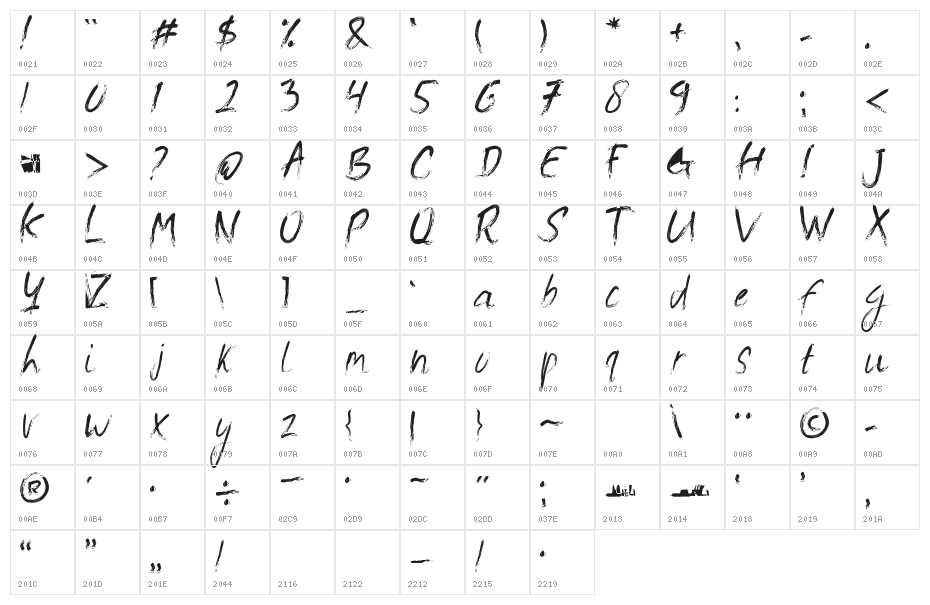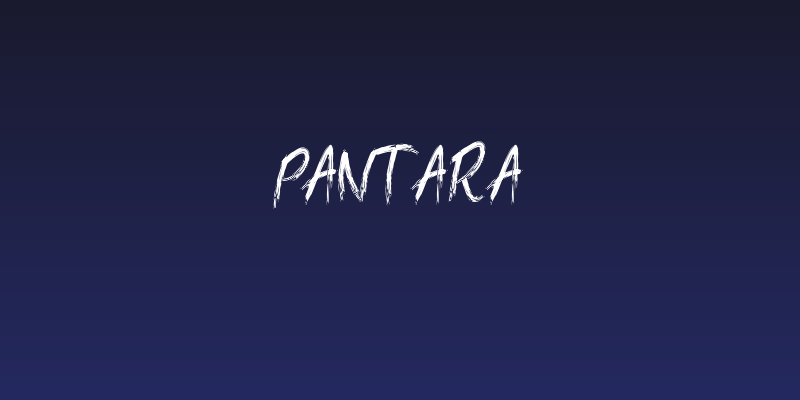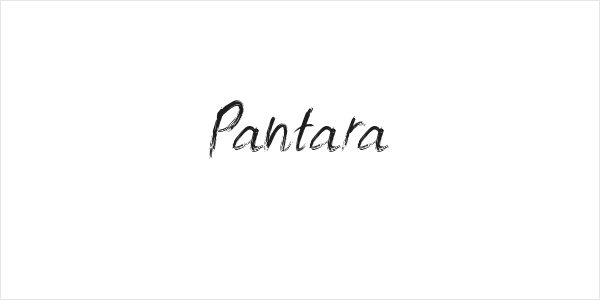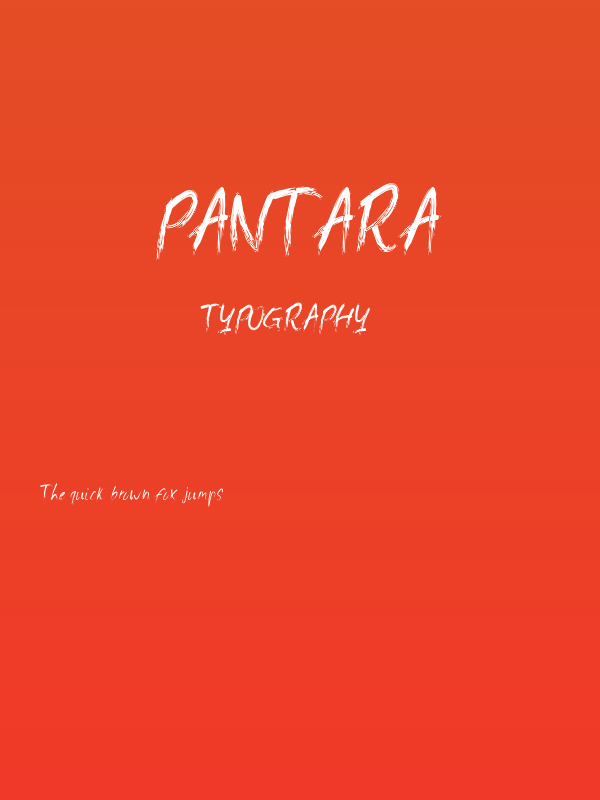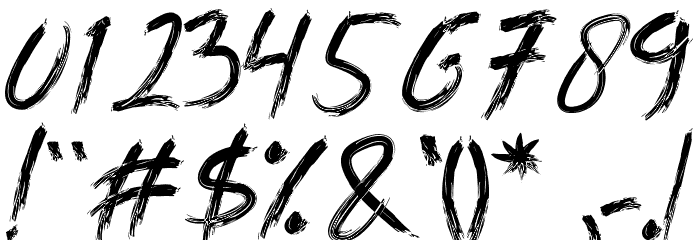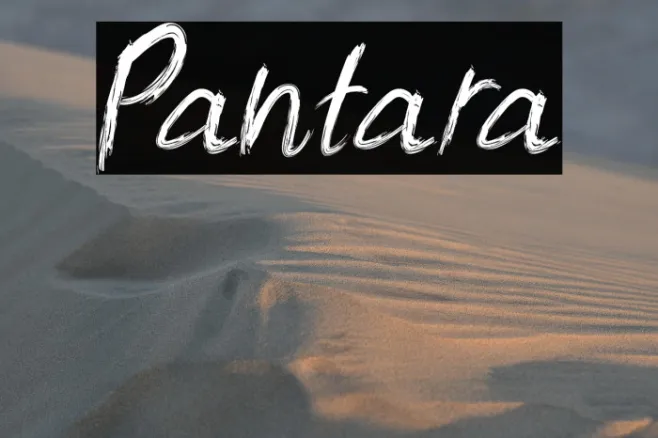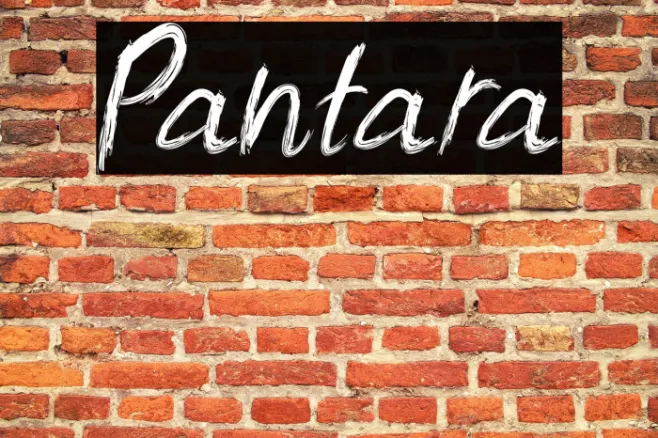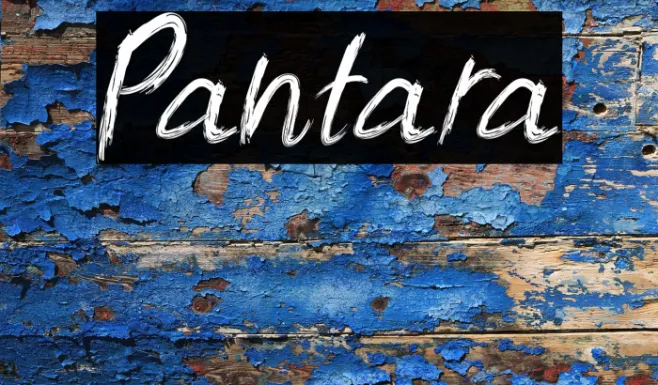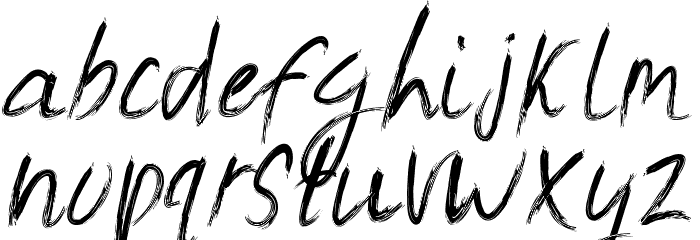
Pantara Font
Pantara Description
This font exhibits a dynamic and energetic brush style, characterized by its bold and expressive strokes. The letters have a hand-painted appearance, with varying thickness and a slightly rough texture that adds a sense of movement and spontaneity. The uppercase and lowercase letters maintain a consistent style, with a slight slant that enhances the casual and artistic feel. The numerals and special characters follow the same aesthetic, ensuring a cohesive look across all elements. This font is ideal for projects that require a bold and artistic touch, such as posters, album covers, or branding for creative industries.
| Use Case | Headlines, Logos, Artistic projects |
| Proposed Projects | Posters, album covers, creative branding, artistic projects. |